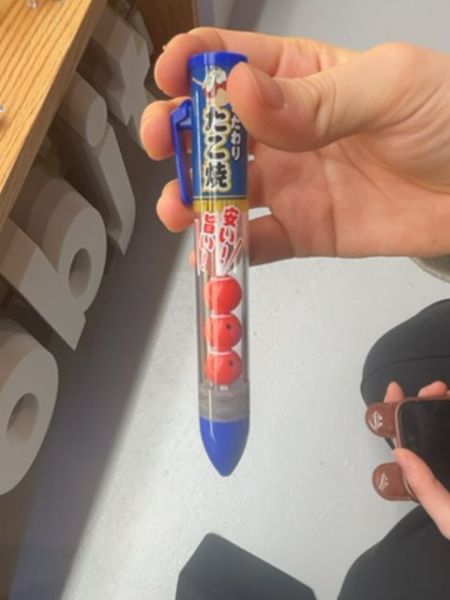
Takoyaki Pen
A novelty pen designed to look like a stick of takoyaki, a popular Japanese street food featuring octopus balls.
The typography on the packaging uses bold, traditional Japanese kanji script reminiscent of hand-drawn calligraphy, adding authenticity and cultural richness. The mix of thick and thin strokes gives the text a dynamic appearance, engaging the viewer with a sense of tradition and playfulness.
The pen packaging prominently features vibrant images of takoyaki to visually represent its theme. It includes bright colors like red and blue, combining imagery with kanji text to enhance its cultural authenticity.
- Represents a popular Japanese street food.
- Used as a novelty item or souvenir.
- Combines functionality with cultural appeal.